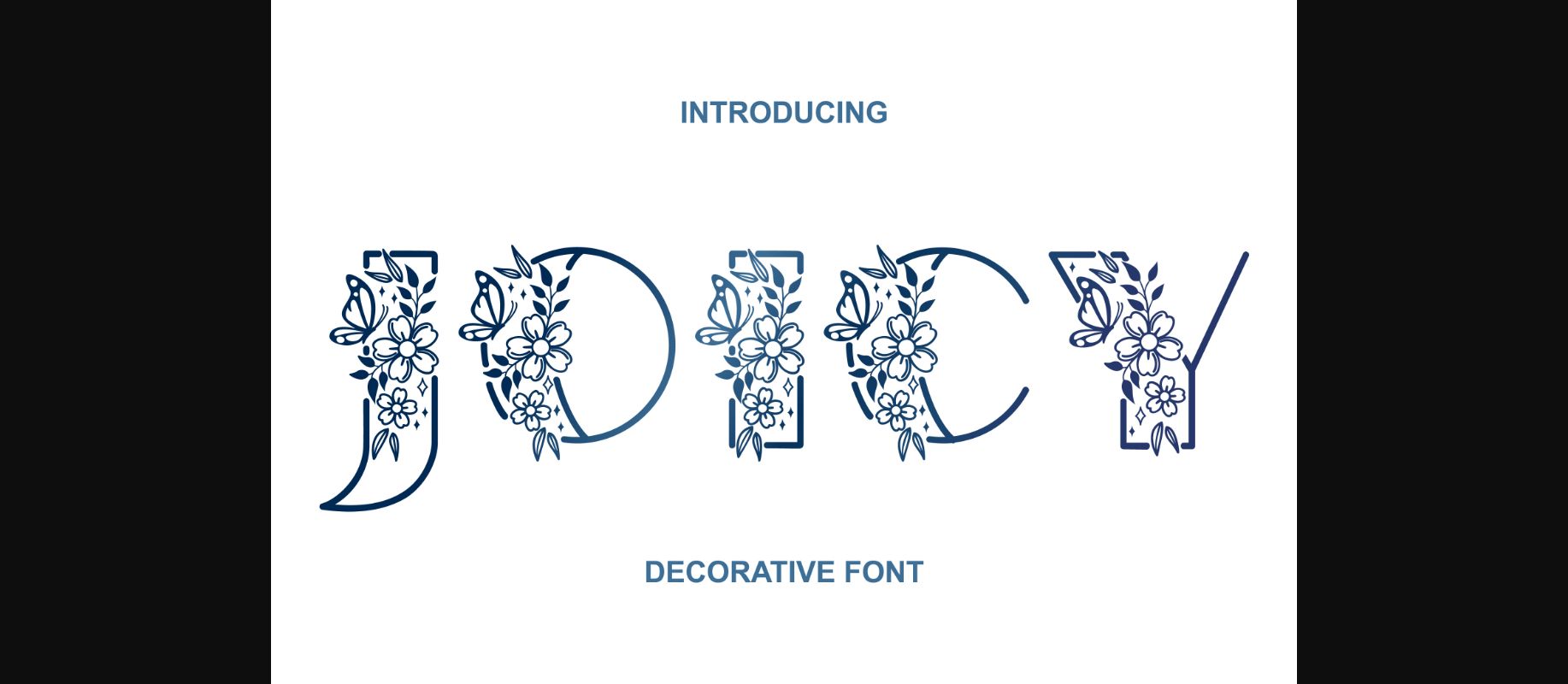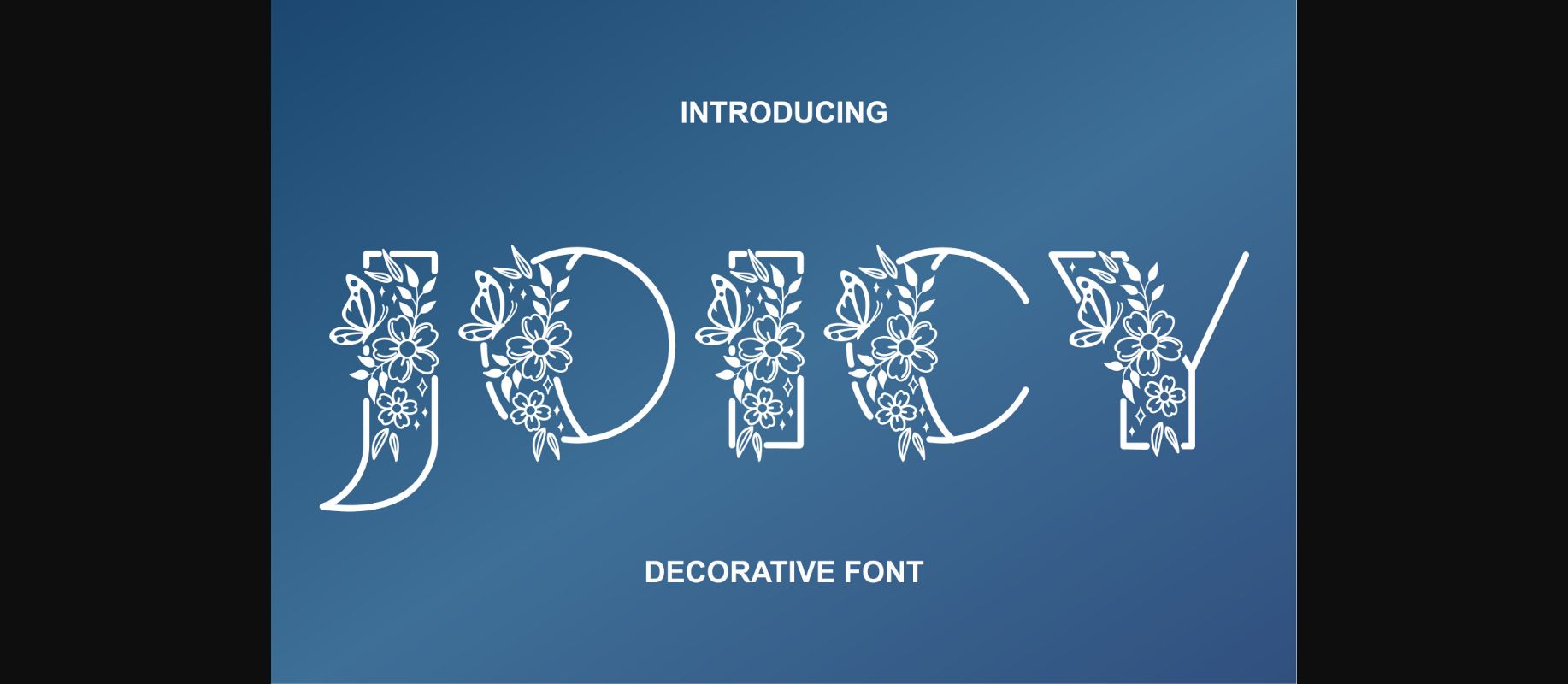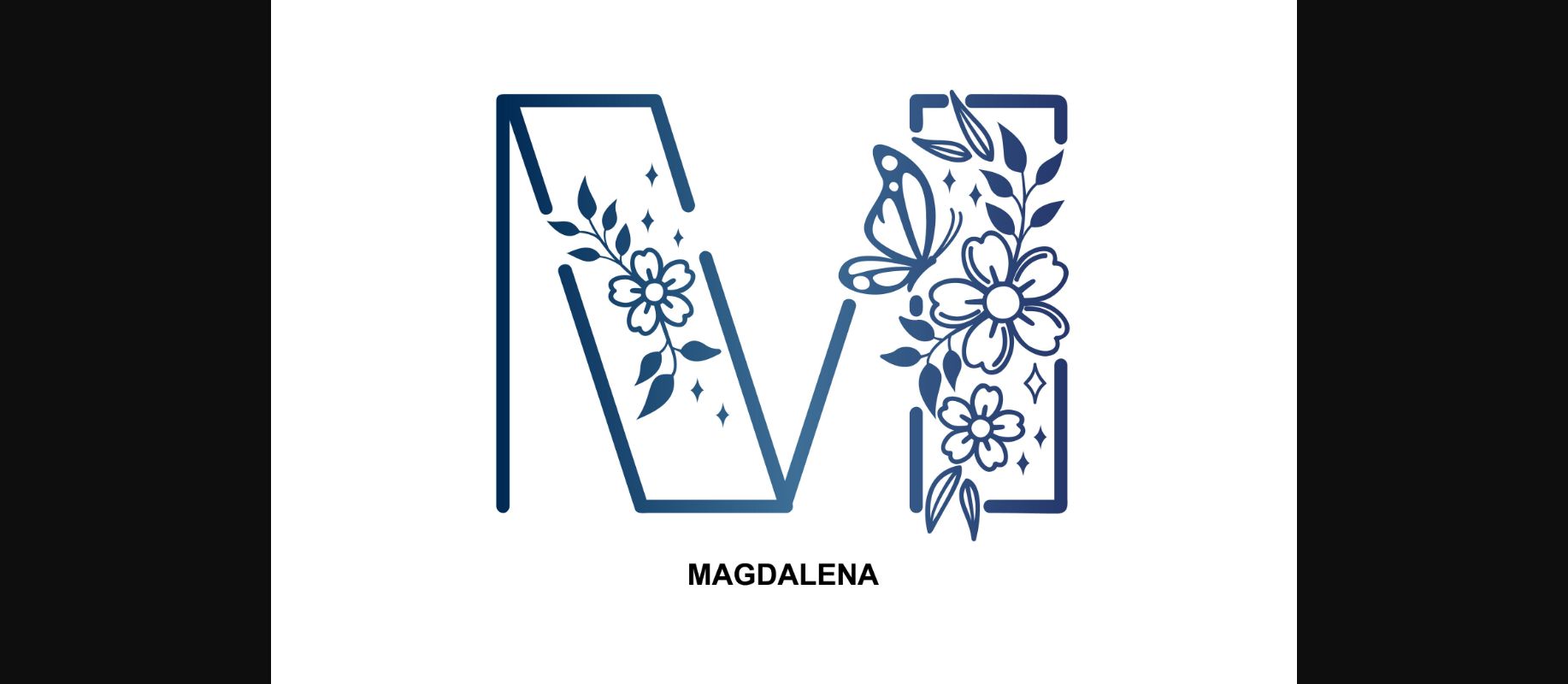
About Joicy Font
Joicy is a decorative font inspired by daisy flowers and a joyful little butterfly. It is charming and elegant, and it is perfect for any design ideas that need that special touch. Happy designing!